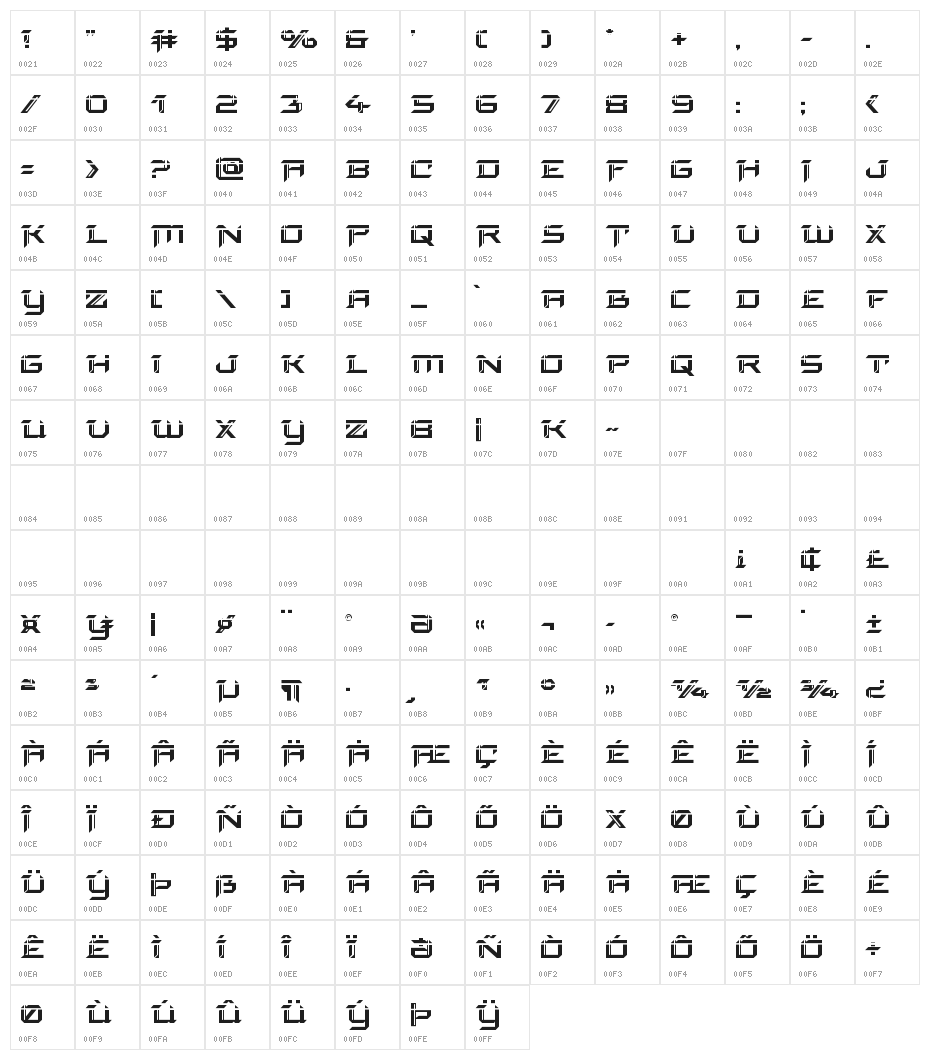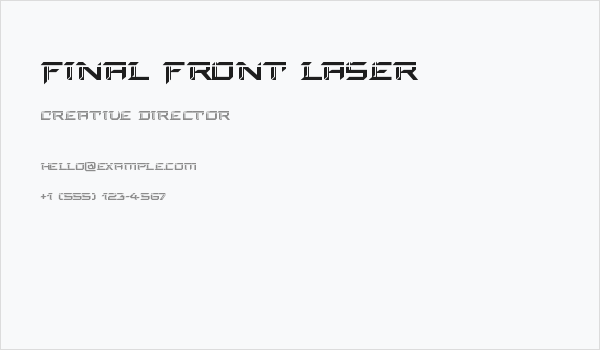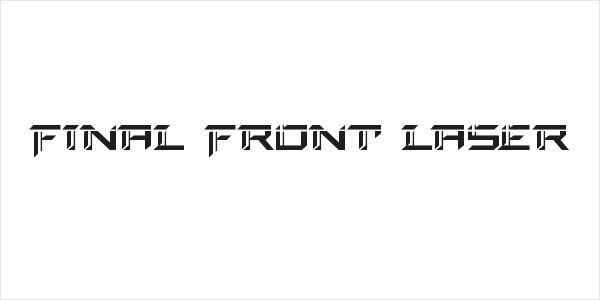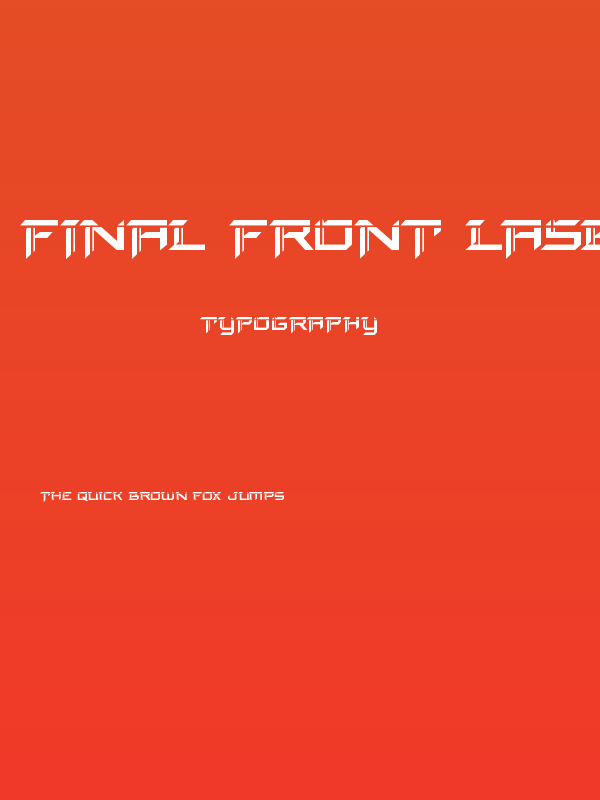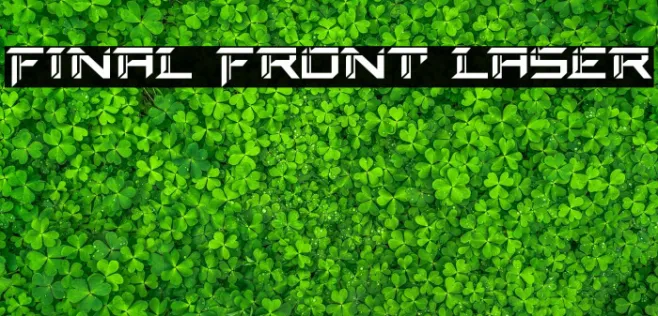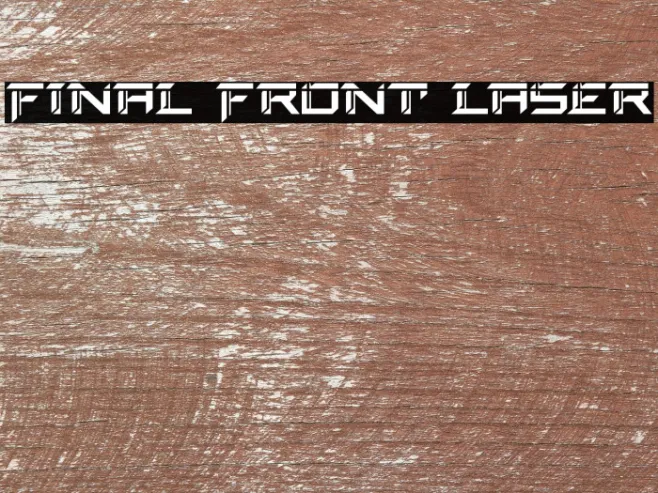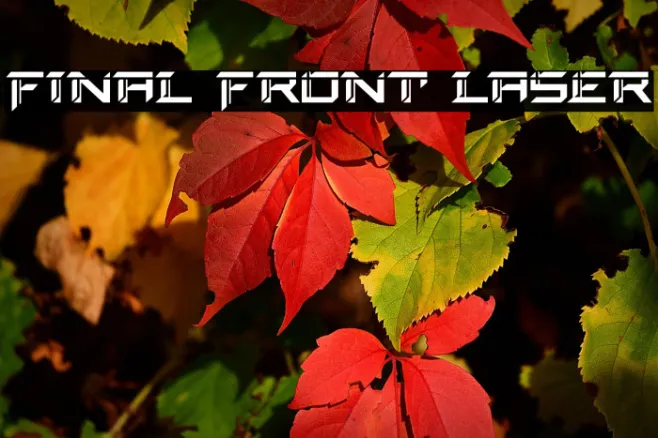
Final Front Laser Font
Final Front Laser Description
This font exhibits a futuristic and angular design, characterized by sharp edges and geometric forms. The characters are constructed with a combination of straight lines and diagonal cuts, giving them a dynamic and high-tech appearance. The uppercase and lowercase letters maintain a consistent style, with a bold and impactful presence. The numerals and special characters follow the same design principles, ensuring uniformity across all glyphs. This font is ideal for projects that require a modern and edgy look, such as technology branding, sci-fi themes, or video game titles.
| Proposed Projects | Ideal for technology branding, sci-fi themes, video game titles, and modern advertising. |